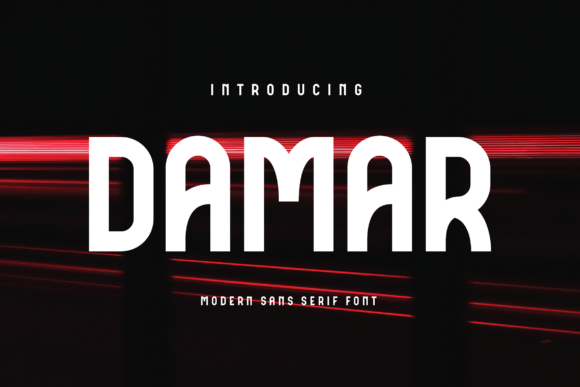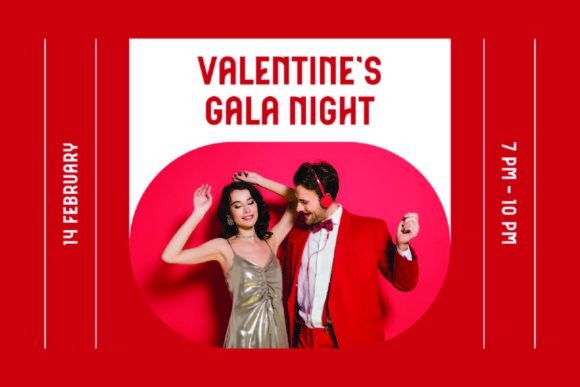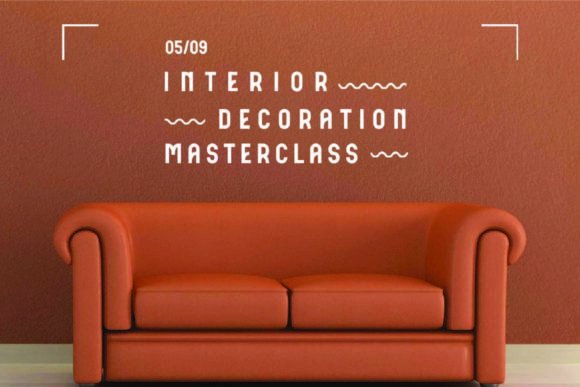
Damar Font: Modern Sans Serif for Logo Design & Elegant Typography
About the Damar Font
Make a bold statement with Damar Font, a powerful and memorable font. Damar is a sans serif typeface, inspired by the famous minimalist logo perfect for the purposes of designing templates, brochures, videos, advertising branding, logos, invitation, layout design, elegant crafting, beauty design and other.
Damar’s clean lines and minimalist aesthetic make it ideal for headlines, logos, and short, impactful text within branding materials and advertising. It excels in creating a sophisticated and modern feel for packaging design, especially for high-end products. However, its minimalist nature makes it less suitable for body text or UI elements requiring high readability over extended lengths.
Its inherent elegance pairs well with both serif and script fonts. Consider a classic serif like Garamond for a touch of traditional refinement or a flowing script like Allura for a more luxurious feel. For a bolder contrast, a geometric sans-serif such as Futura could be effective.
Damar projects a feeling of sophisticated minimalism and modern elegance. Brands aiming for a clean, upscale image, particularly those in the fashion, beauty, or luxury goods sectors, will find it highly effective.